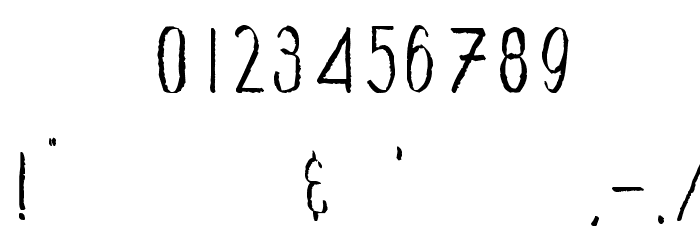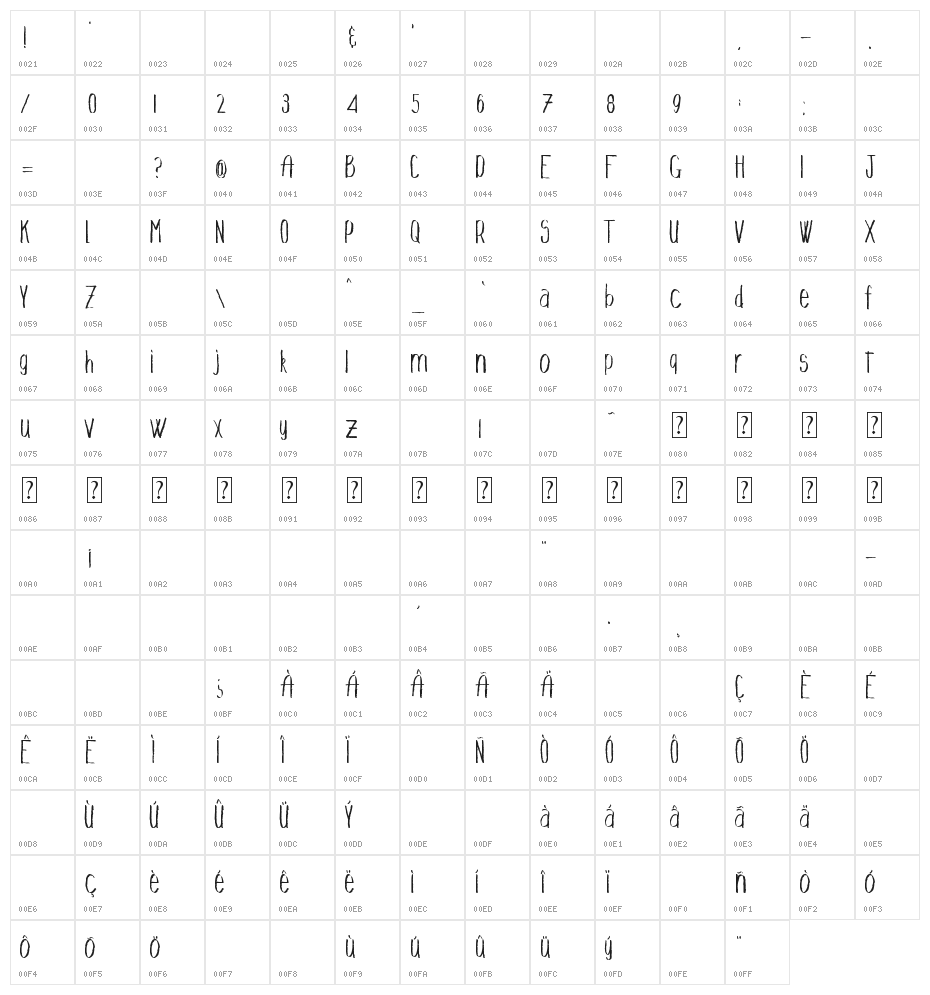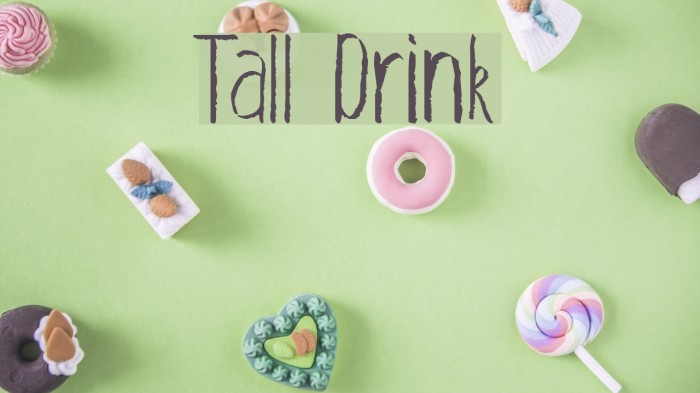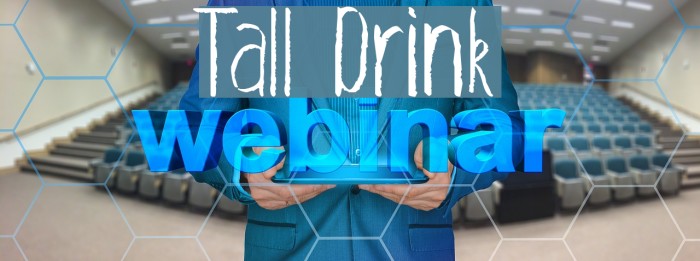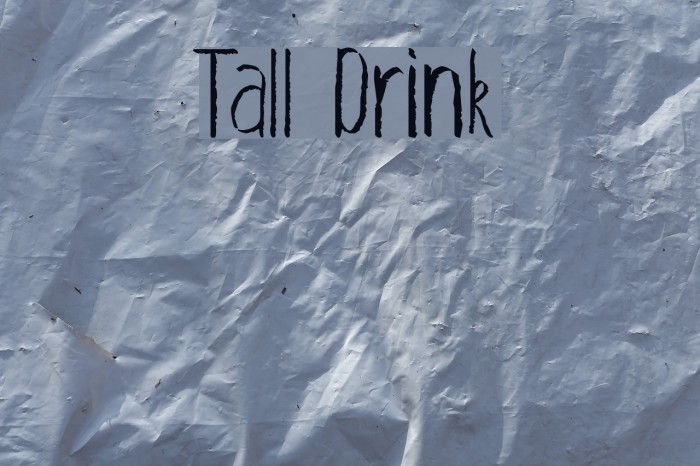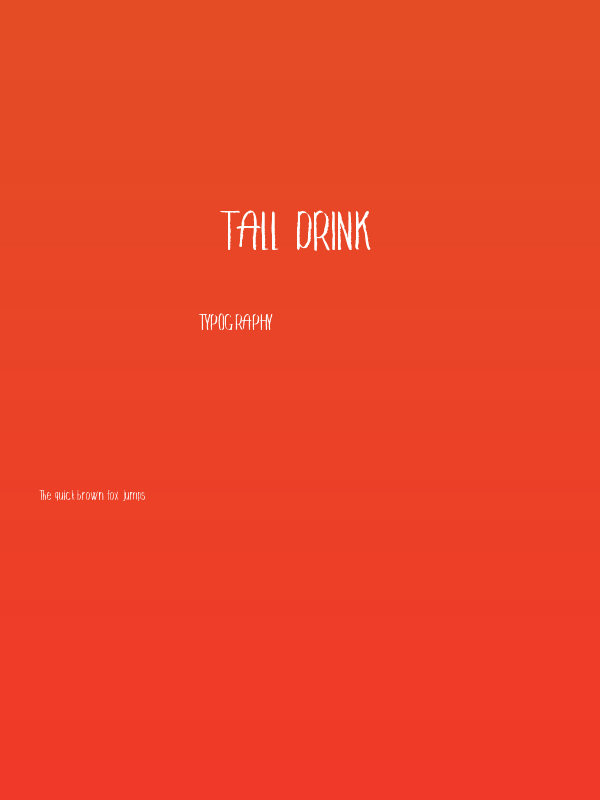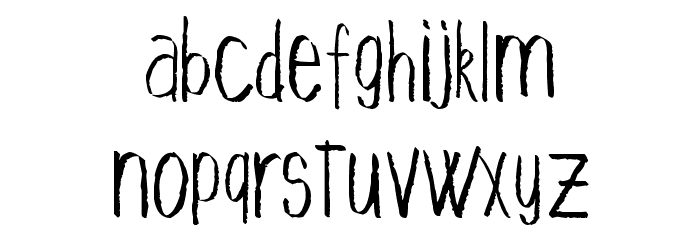
Tall Drink Font
Tall Drink Description
This font features a tall, narrow design with a hand-drawn aesthetic, giving it a unique and artistic appearance. The characters are elongated, with a slightly irregular stroke that adds a personal touch. The uppercase letters are particularly tall and slender, while the lowercase letters maintain a consistent height, contributing to a cohesive look. The numbers follow the same style, ensuring uniformity across different uses. The special characters are crafted with the same attention to detail, making them blend seamlessly with the rest of the font. This font's distinctive style makes it suitable for creative projects that require a touch of individuality and flair.
| Overall Style | Artistic |
| Proposed Projects | Ideal for artistic posters, creative branding, unique invitations, and personal projects that require a distinctive touch. |